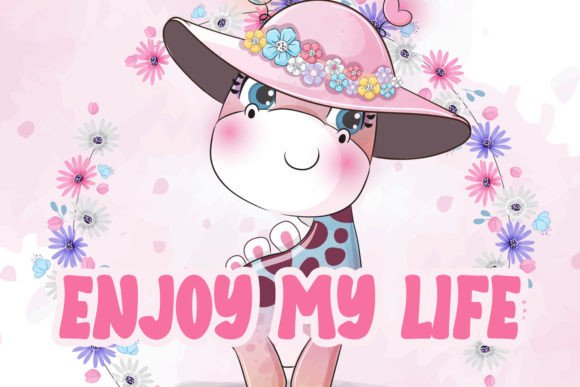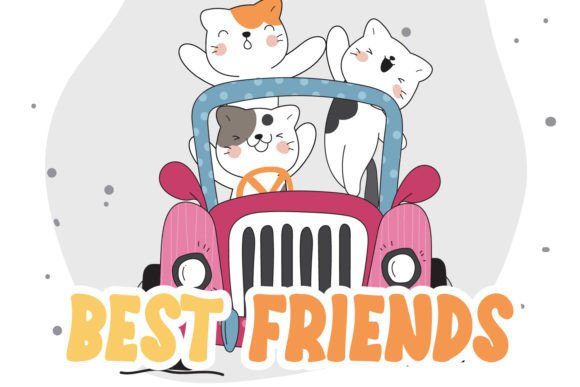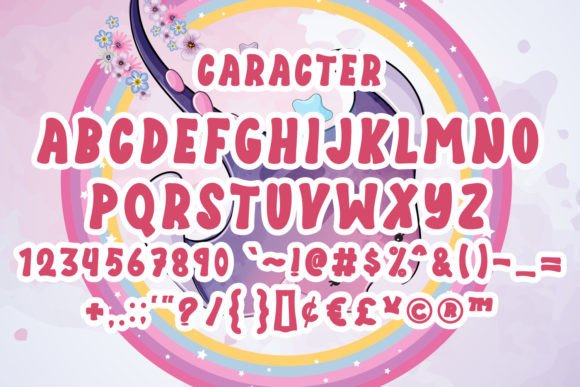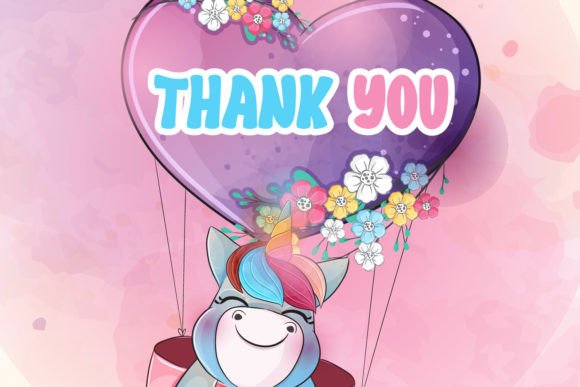
Introducing Happy Retro Font: The Perfect Addition to Your Design Projects
Are you looking for a font that can add a touch of playfulness and nostalgia to your design projects? Look no further than the Happy Retro Font! This cute and playful retro display font is perfect for a wide range of applications, from greeting cards to headlines, and many more. In this article, we’ll take a closer look at the Happy Retro Font, its features, and how you can use it to elevate your designs.
What is Happy Retro Font?
Happy Retro Font is a unique and charming font that is inspired by the classic designs of the past. Its retro vibe is perfect for designers and crafters who want to add a touch of nostalgia and playfulness to their projects. The font is designed to be highly legible and versatile, making it suitable for a wide range of applications, from digital designs to print materials.
Key Features of Happy Retro Font
- Cute and Playful Design: Happy Retro Font features a cute and playful design that is sure to capture the attention of your audience.
- Retro Vibe: The font has a distinct retro vibe that is perfect for designers and crafters who want to add a touch of nostalgia to their projects.
- Highly Legible: The font is designed to be highly legible, making it suitable for use in a wide range of applications, from headlines to body text.
- Versatile: Happy Retro Font is a versatile font that can be used in a wide range of applications, from digital designs to print materials.
Uses of Happy Retro Font
Happy Retro Font is perfect for a wide range of applications, including:
- Greeting Cards: Add a touch of playfulness and nostalgia to your greeting cards with Happy Retro Font.
- Headlines: Use Happy Retro Font to create eye-catching headlines that capture the attention of your audience.
- Digital Designs: Happy Retro Font is perfect for use in digital designs, from social media graphics to website headers.
- Print Materials: The font is also suitable for use in print materials, from brochures to posters.
Why Choose Happy Retro Font?
There are many reasons why you should choose Happy Retro Font for your design projects. Here are a few:
- Unique Design: Happy Retro Font features a unique and charming design that is sure to set your projects apart.
- High-Quality: Happy Retro Font is a high-quality font that is designed to produce crisp and clear results.
Tips for Using Happy Retro Font
Here are a few tips for using Happy Retro Font in your design projects:
- Use it Sparingly: Happy Retro Font is a bold and playful font, so it’s best to use it sparingly to avoid overwhelming your design.
- Pair it with Other Fonts: Happy Retro Font can be paired with other fonts to create a unique and interesting design.
- Experiment with Colors: The font looks great in a wide range of colors, so don’t be afraid to experiment and find the perfect color for your design.
In conclusion, Happy Retro Font is a unique and charming font that is perfect for designers and crafters who want to add a touch of playfulness and nostalgia to their projects. Its retro vibe, cute and playful design, and high legibility make it suitable for a wide range of applications, from greeting cards to headlines, and many more. So why not give Happy Retro Font a try and see the difference it can make in your design projects?